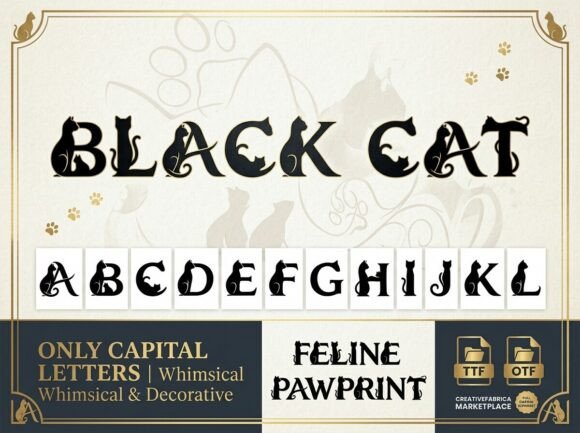
The Purrfect Font: A Deep Dive into Feline Pawprint (Black Cat)
I’ll never forget the time I was working on a project for a local pet boutique, struggling to find the right font that captured the whimsical and playful vibe of their brand. The client wanted something that would appeal to cat lovers of all ages, but I was coming up blank. That’s when I stumbled upon Feline Pawprint, a charming “Black Cat” font that instantly transported me to a world of storybook charm. In this article, I’ll share my experience with this unique font, its features, and how to make the most of it in your designs.
Here’s what I’m obsessed with about Feline Pawprint:
- ✨ Unique and eye-catching design: The integration of feline silhouettes and pawprint motifs into every letter is pure genius.
- ✅ Instant storybook aesthetic: This font adds a touch of magic to any project, making it perfect for cat-themed merchandise, pet boutique logos, and Halloween event stationery.
- 🎉 Whimsical and decorative: Feline Pawprint is more than just a font – it’s a piece of illustrative art that brings a smile to your face.
A few things to keep in mind:
- 🤔 All-caps only: Feline Pawprint is an all-caps font, which might limit its use for certain projects that require lowercase text.
- ⚠️ Legibility at small sizes: While the font is stunning, it may become less legible at very small sizes, so be sure to test it in your design.
The Designer Inspiration Behind Feline Pawprint
The story goes that the designer of Feline Pawprint was a cat lover and artist who wanted to create a font that captured the magic and playfulness of our feline friends. Inspired by vintage cat illustrations and whimsical typography, they crafted a unique font that would bring a smile to cat lovers’ faces. While the designer’s true identity remains a mystery, their creation has certainly made a lasting impact on the world of typography.
| Font Name | Black Cat Font |
| Author | Raholco |
| What type of projects is Feline Pawprint best suited for? | Pet boutique logos, veterinary clinic branding, Halloween event stationery, and cat-themed merchandise. |
| Is Feline Pawprint available in multiple weights or styles? | Currently, Feline Pawprint is available as an all-caps font, but the designer may release additional weights or styles in the future. |